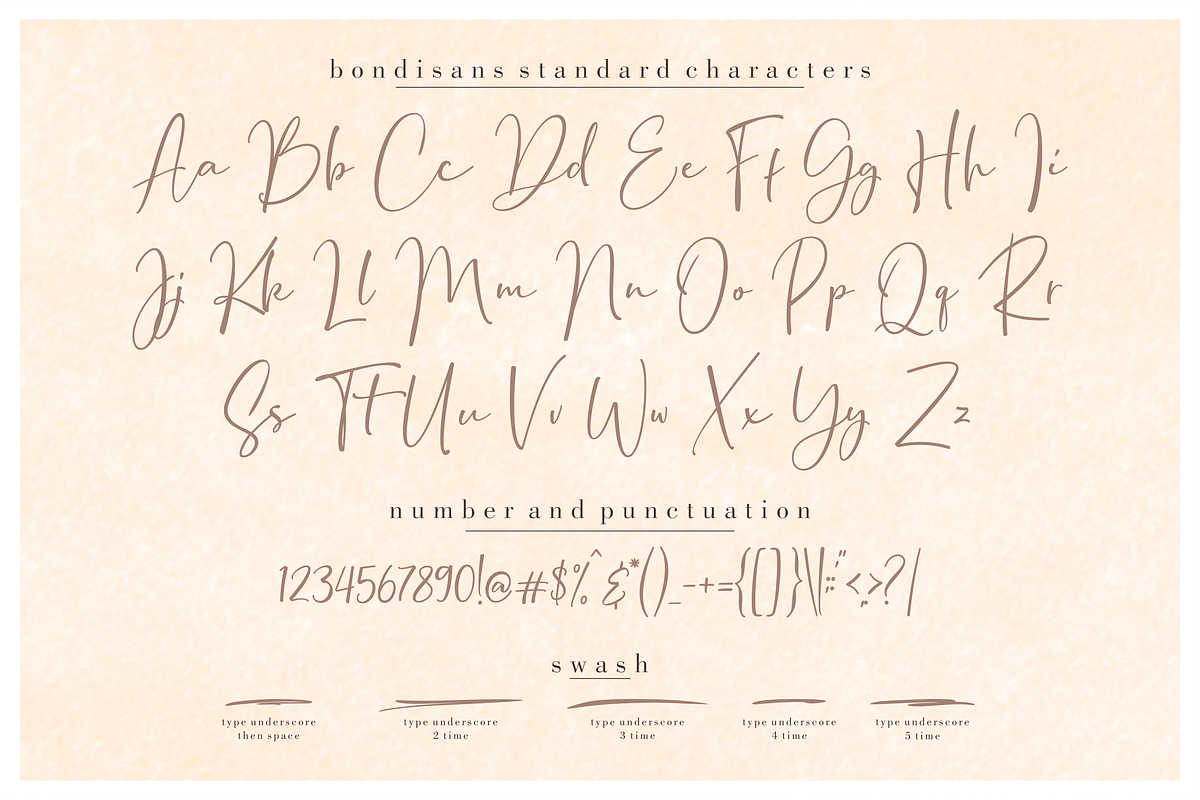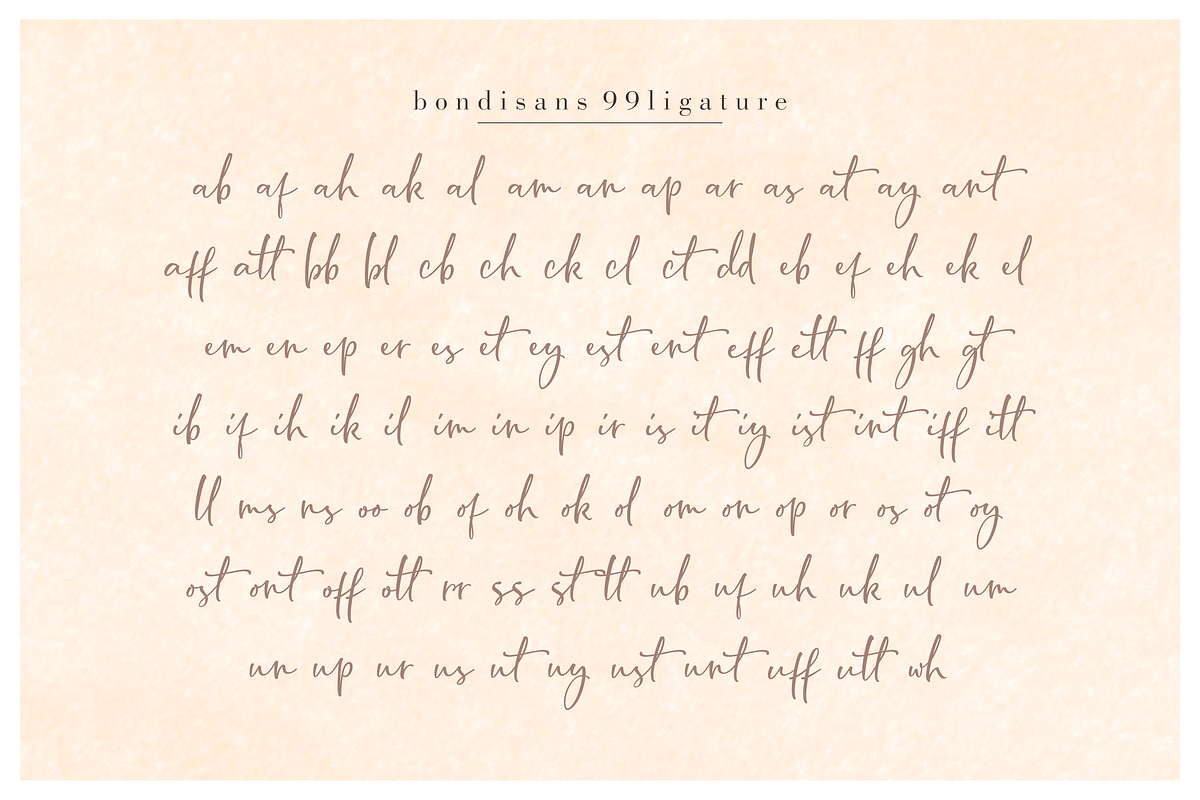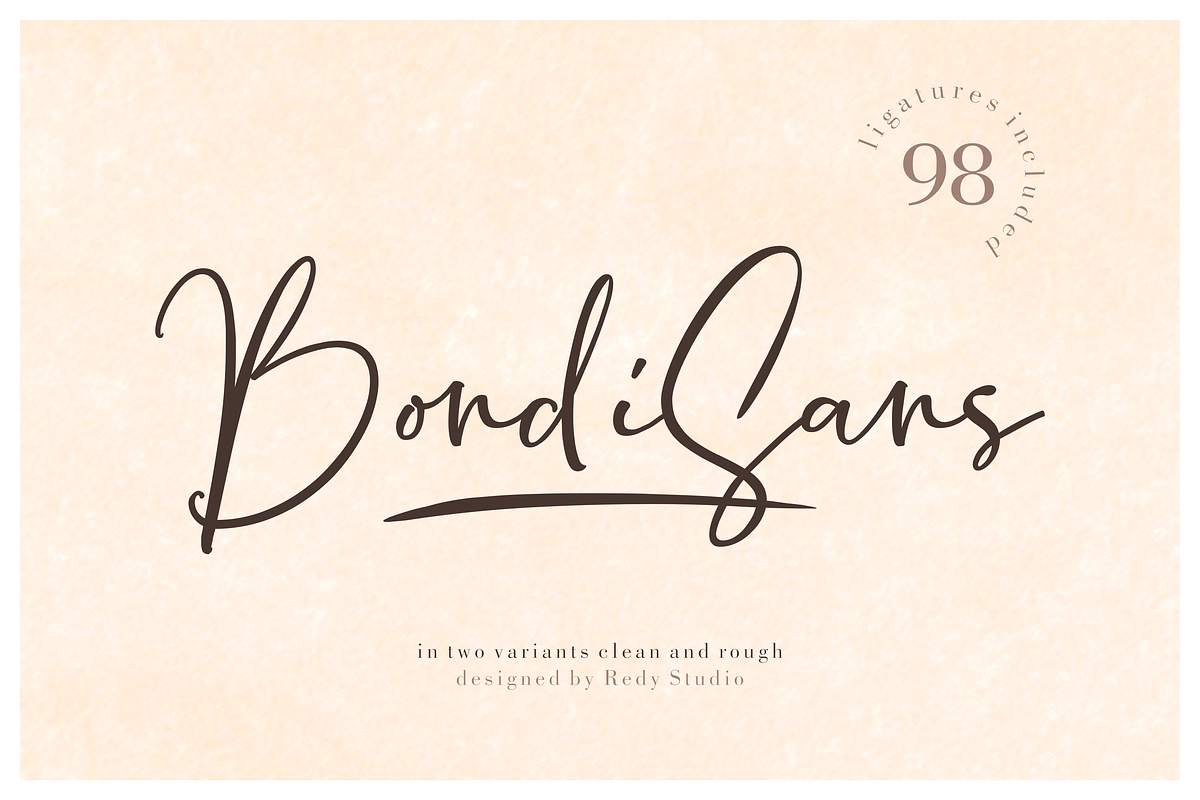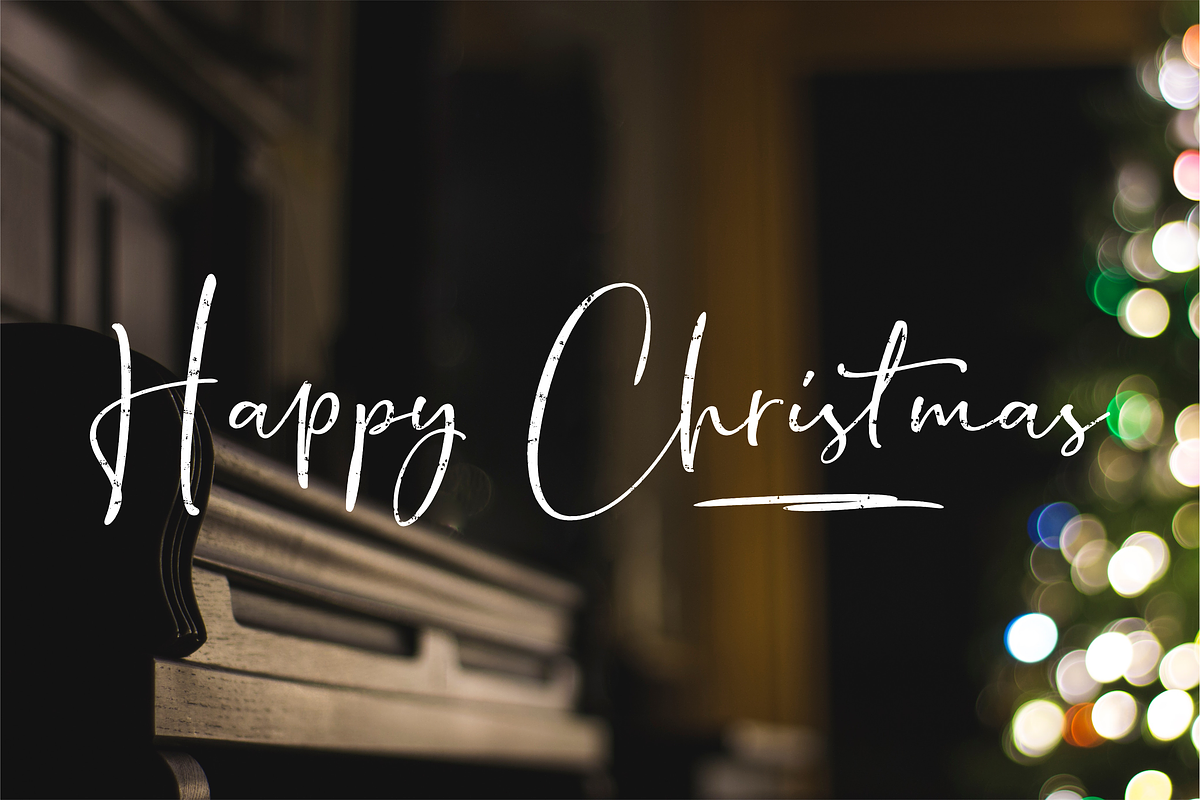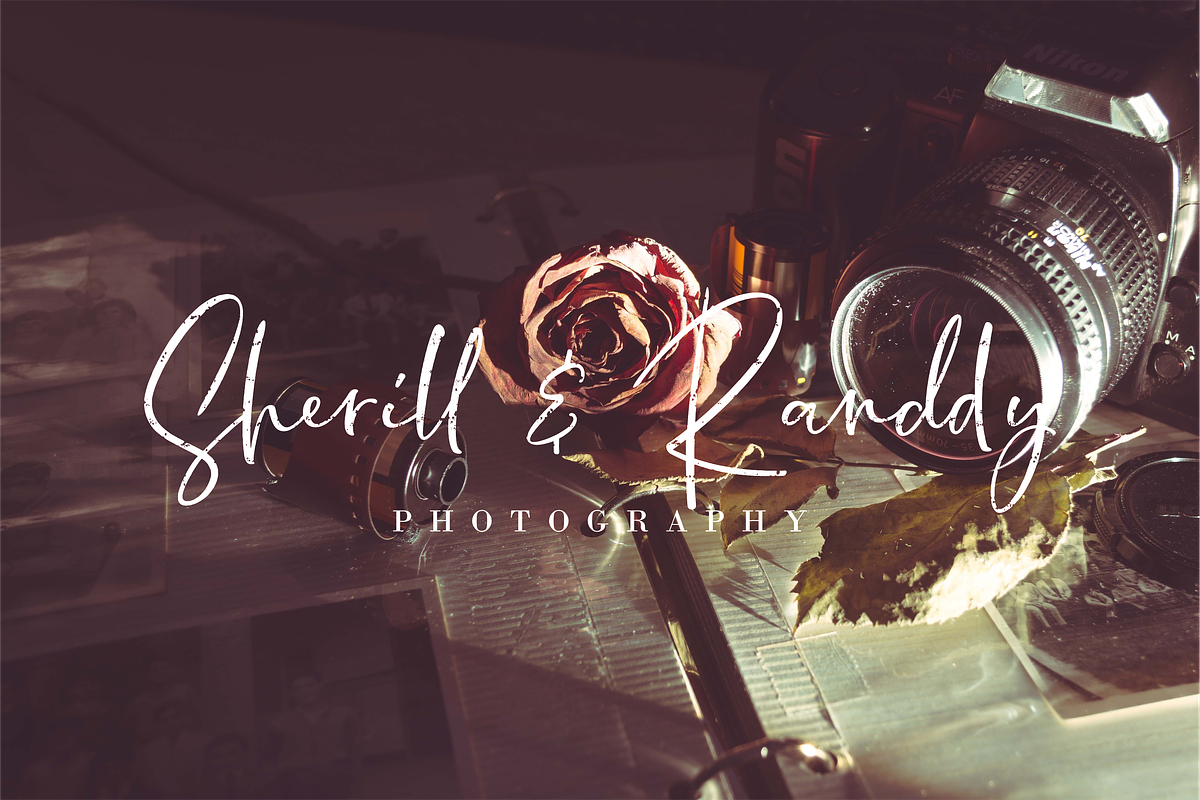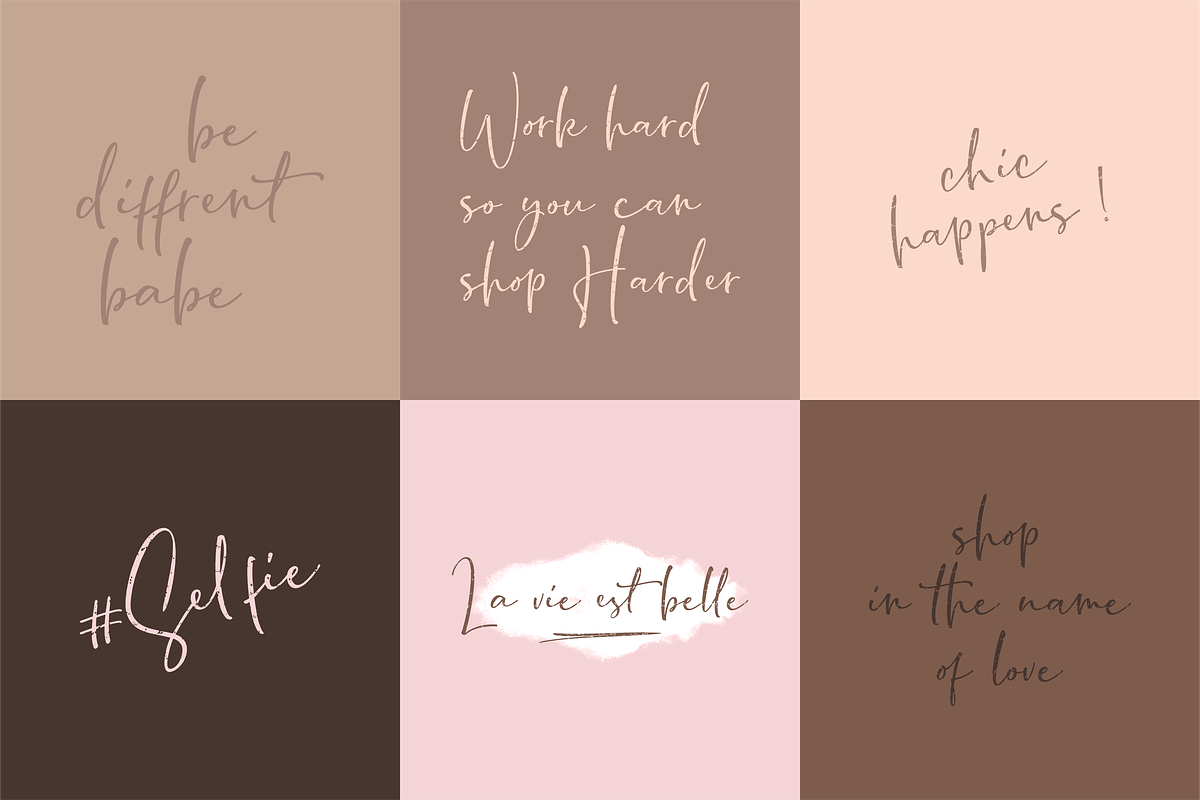
BondiSans – Modern Fonts
Hi, I’m BondiSans! I’m a modern script font with a messy brush and gorgeous bouncy letter, comes with different variants: rough and clean, which are full of ligatures and swashes to give your design that personal and playful touch. Bondisans type is perfect for use in logos and branding projects, T-shirt designs, adding a stylish touch to your design, great for invitations and greeting cards too.
BondiSans features:
- A full set of upper & lowercase characters
- 94 Gorgeous ligatures
- Multilingual symbols